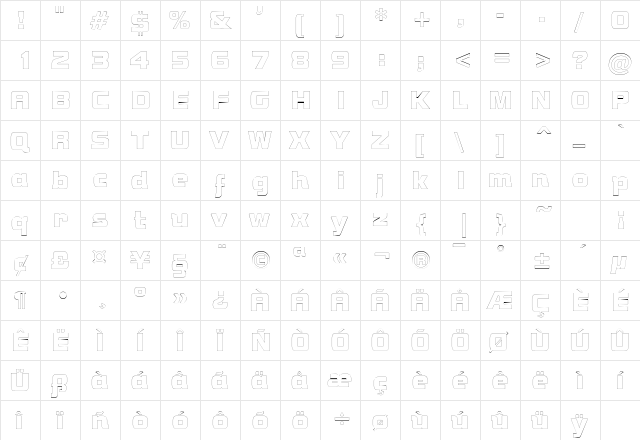
NutsOutline Regular
Design Context for NutsOutline Typeface
NutsOutline brings ornamental detail and strong personality to headlines and identities, where visual impact matters more than quiet functionality.
Font Pairing: Pair with a clean neutral sans-serif for body copy to let NutsOutline's character lead without overwhelming the composition.
Pro Tip: Treat NutsOutline as the centrepiece of your typographic hierarchy. One strong heading set in a decorative face can carry an entire layout.